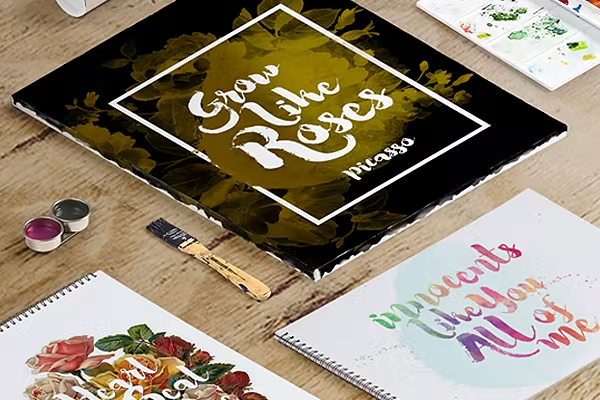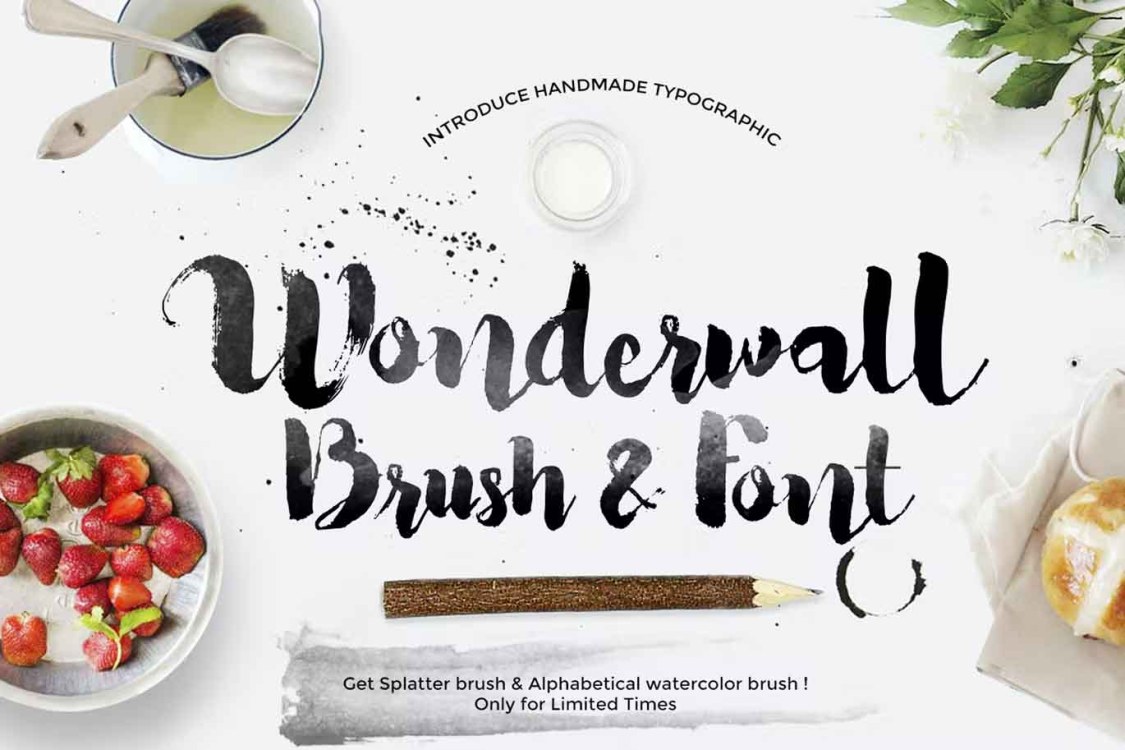
Wonderwall Font
Wonderwall script typeface
Wonderwall font comes from manual Typographic and transparent watercolor. trying to make a case characters irregular but have a good harmony. Create something different with ligatures and alternate. Suitable for making crafts manual arts. greeting in love with the natural impression, wedding card
Wonderwall Font is a Decorative Fonts font that brings a professional and versatile look to your projects. Wonderwall script typeface Wonderwall font comes from manual Typographic and transparent watercolor.